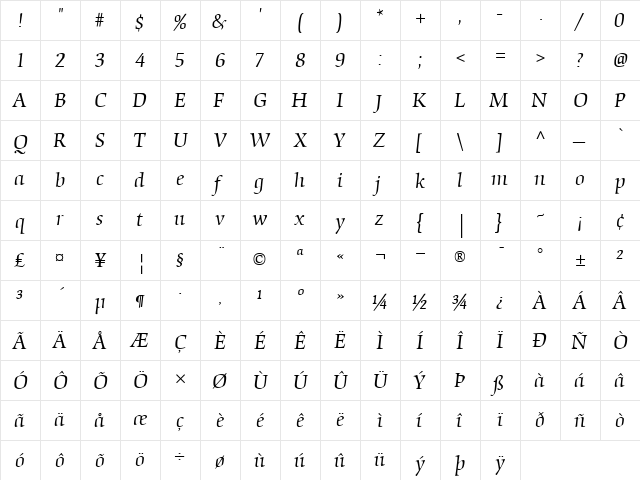
Origami RomanItalic
Design Context for Origami Typeface
Origami takes a measured approach to typography — its balanced proportions and neutral character make it a reliable workhorse for both digital and print work. The slanted form adds forward momentum and visual energy.
Pro Tip: Use Origami for emphasis, pull quotes, and subheadings where its slanted energy can add rhythm to the layout.